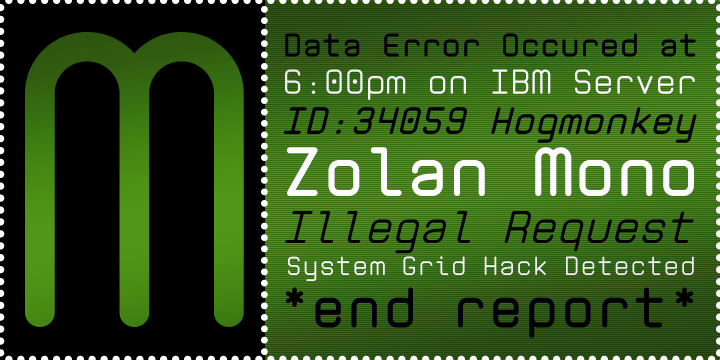
HomeFont BrosFuturisticZolan Mono BTN Futuristic Zolan Mono BTN FacebookXPinterestWhatsApp 1 of 1 About Zolan Mono BTN Zolan Mono was developed with software developers in mind. It provides a clean, easy-to-read on-screen display and has a fresh, modern feeling.  DOWNLOAD NOW People also explored Spiroy Golden Font Happy Easter Icons Font Nextart Outline Bold Font Starfully Font Pestra Font Lovely Star Font Thinkloud Font Kathleen Font White Crystal Script Font 218 0 TagsZolan Mono BTN Font Previous articleCapitol ProNext articleAlfaqix Ellipsoid LEAVE A REPLY Cancel reply Comment: Please enter your comment! Name:* Please enter your name here Email:* You have entered an incorrect email address! Please enter your email address here Website: Save my name, email, and website in this browser for the next time I comment. Personal Use Free Alnair Star Personal Use Free Read more about this font Mini Story Personal Use Free Read more about this font Cherry Ai Personal Use Free Read more about this font Aline Personal Use Free Read more about this font BLOG How to Cut Any Font on Cricut: Convert a Font to SVG (Free) Turn any font into a clean SVG so it cuts crisp on Cricut - a quick 3-step workflow using a free font-to-SVG tool. Modern Sans-Serif Fonts That Brands Love in 2025 Free vs Paid Fonts: Why Investing in Premium Fonts Is Worth It How to Install and Use Fonts on Windows, macOS, and Web Projects